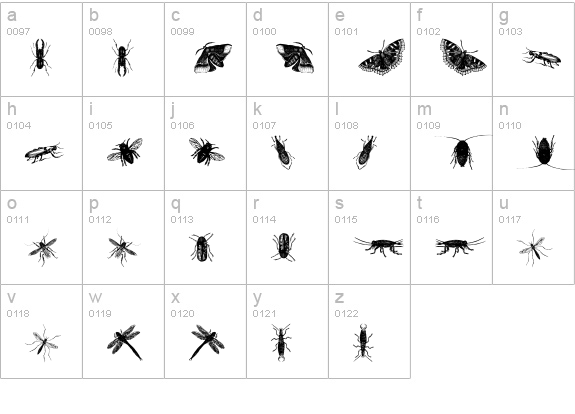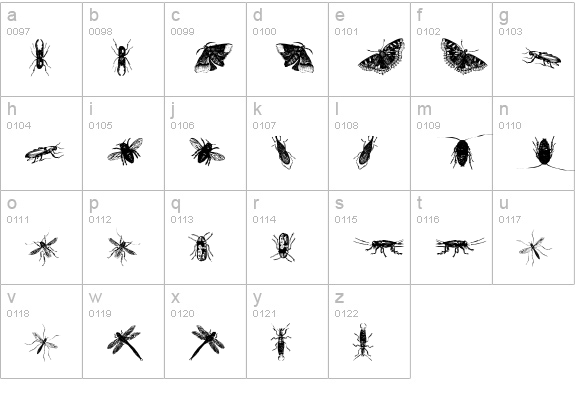
insects one Font Details
Introducing Insects One, a captivating and versatile font that will bring a touch of whimsy to your design projects. This unique typeface features intricate details and delicate curves, reminiscent of the fascinating world of insects. Its organic and playful nature makes it perfect for a wide range of applications, from children's book illustrations to nature-inspired branding. With Insects One, your creativity will take flight as you explore the endless possibilities this font has to offer. Each letter is meticulously crafted, showcasing the intricate patterns and textures found in the insect kingdom. From the elegant swirls of a butterfly's wings to the delicate lines of a dragonfly's body, this font captures the essence of these remarkable creatures. But what makes Insects One truly special is that it is freely available to download at FontsMarket.com. Yes, you read that right – this captivating font can be yours without any cost. Whether you're a professional designer or a hobbyist, this generous offer allows you to unleash your creativity without any limitations. Insects One is not just a font, but a gateway to a world of possibilities. Its versatility allows it to be used in a variety of design projects, including logos, posters, packaging, and more. With its unique charm and attention to detail, it will undoubtedly make your creations stand out from the crowd. Don't miss out on the opportunity to enhance your designs with this extraordinary font. Visit FontsMarket.com today and download Insects One for free. Let your imagination take flight and create something truly remarkable with this freely available font.